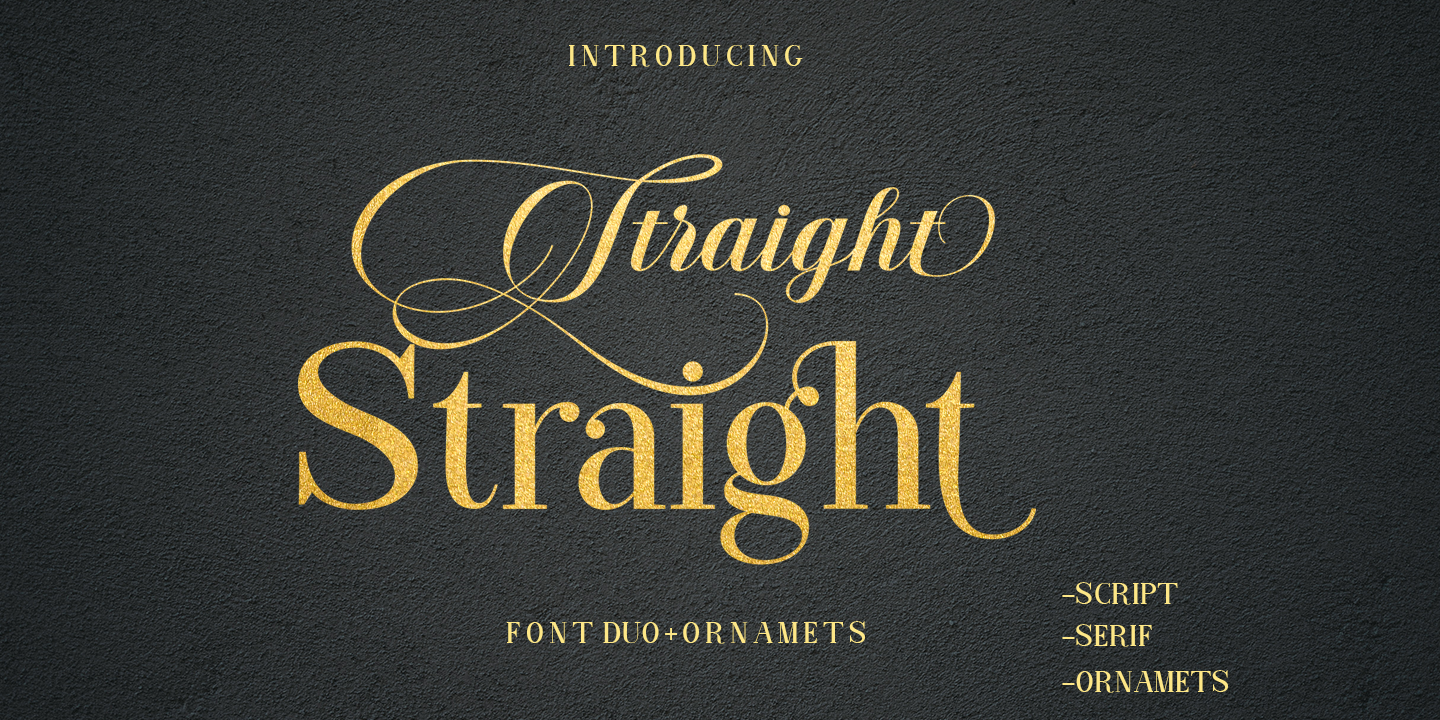
Straight Script Font is perfect for elegant wedding invitations, sophisticated business signatures, luxury brand logos, personal stationery designs, boutique hotel branding, artisanal product packaging, professional certificates, premium greeting cards, upscale restaurant menus, and refined lifestyle publications that require handwritten typography with contemporary elegance and streamlined sophistication.
What makes Straight Script Font so exciting is its unique combination of classic script elegance with modern geometric precision that creates a distinctive handwritten style without excessive flourishes. This font features clean, flowing letterforms that maintain the personal touch of handwriting while incorporating straight-lined elements that ensure excellent readability and contemporary appeal. The balanced approach between traditional script beauty and modern functionality makes it perfect for brands seeking sophisticated yet approachable typography.
The Straight Script Font family includes multiple weights and styles: Light, Regular, Medium, Bold, and decorative variants with optional connecting ligatures. Each weight maintains the signature straight script character while offering comprehensive flexibility for elegant design applications and refined typographic expressions.
Elegant designers consistently choose Straight Script Font Free Download for projects requiring sophisticated handwritten typography that bridges traditional script beauty with contemporary design needs. Whether you're creating luxury brand identities, developing premium wedding materials, designing upscale packaging, or crafting refined marketing campaigns, this font delivers exceptional elegance and modern sophistication. The font's comprehensive character set includes stylistic alternates and connecting elements while ensuring optimal performance across both digital and print elegant applications, making it an essential tool for designers working on upscale projects that demand sophisticated, readable, and contemporarily elegant script typography solutions with refined handwritten charm and modern functionality.